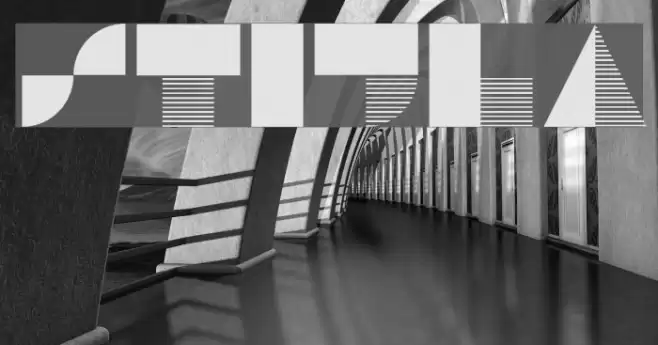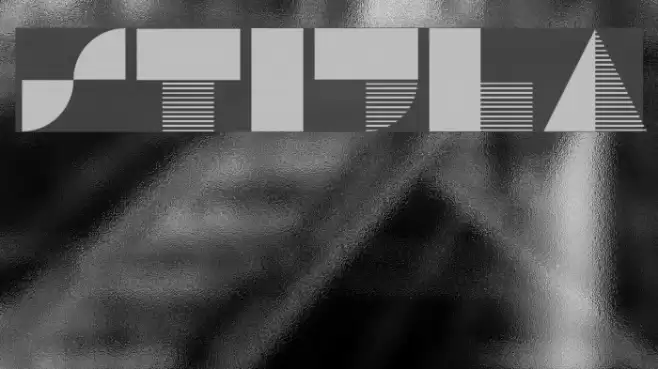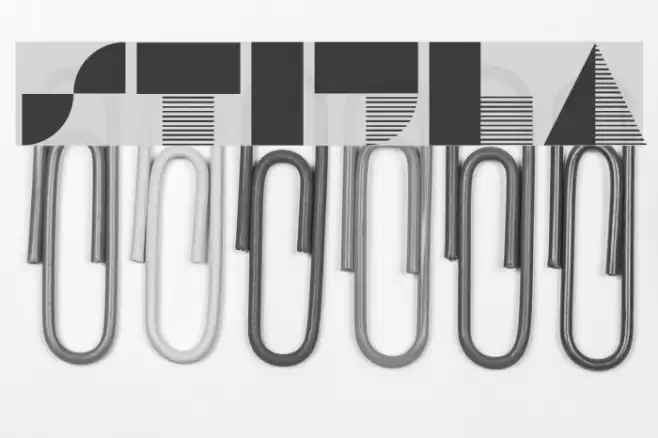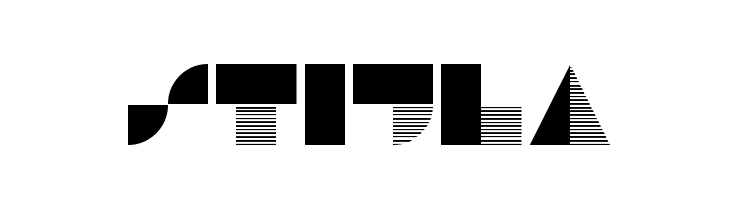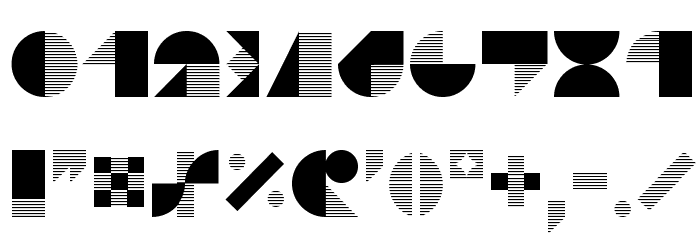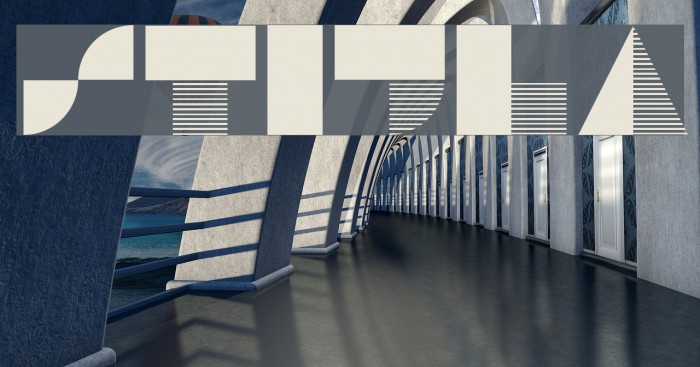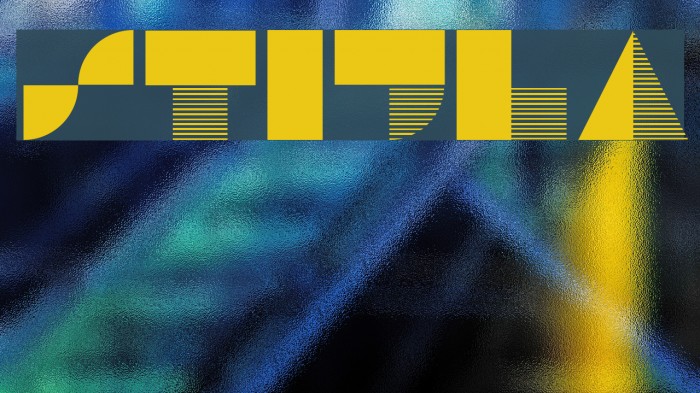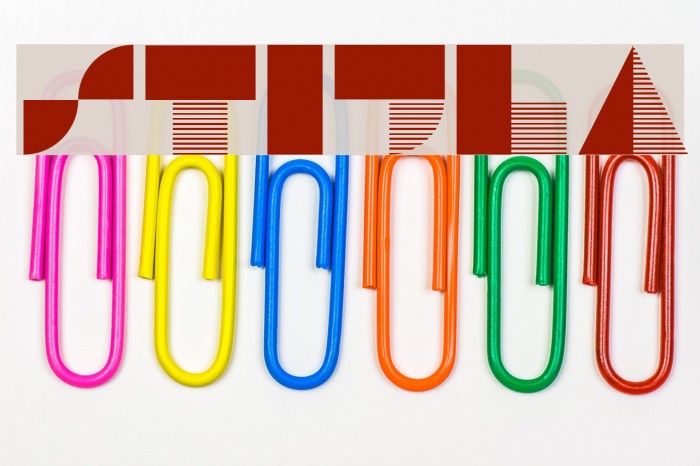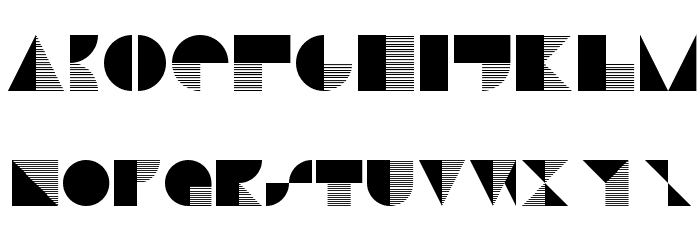
Stijla Font
Stijla Description
This font features a bold, geometric design with a modern twist. Each character is constructed using a combination of solid shapes and striped patterns, creating a striking visual contrast. The uppercase letters are particularly distinctive, with angular and circular elements that give the font a futuristic and dynamic appearance. The numbers and special characters maintain this unique style, ensuring consistency across all glyphs. The overall aesthetic is both eye-catching and versatile, suitable for a variety of creative applications.
A bold, geometric font with striped patterns and a modern, futuristic style from Retro fonts.
- Proposed Projects: Ideal for branding, posters, album covers, and any project requiring a bold, modern look.